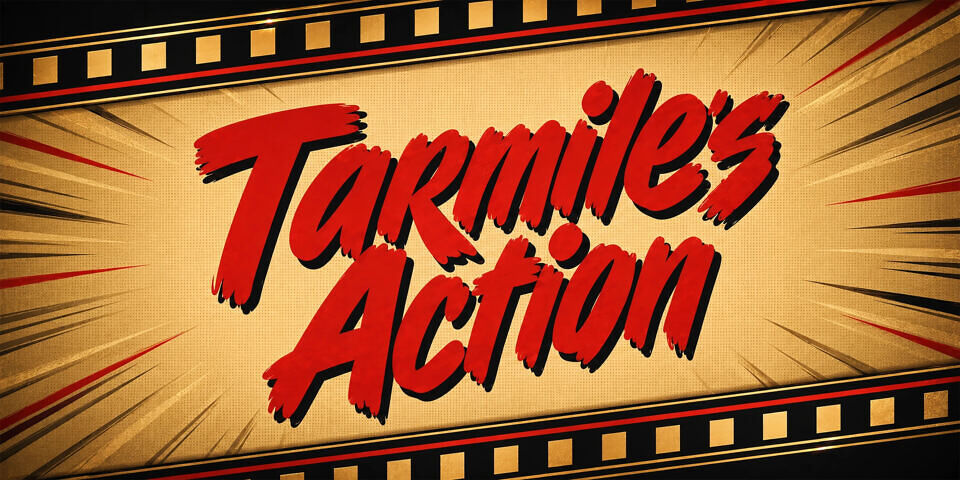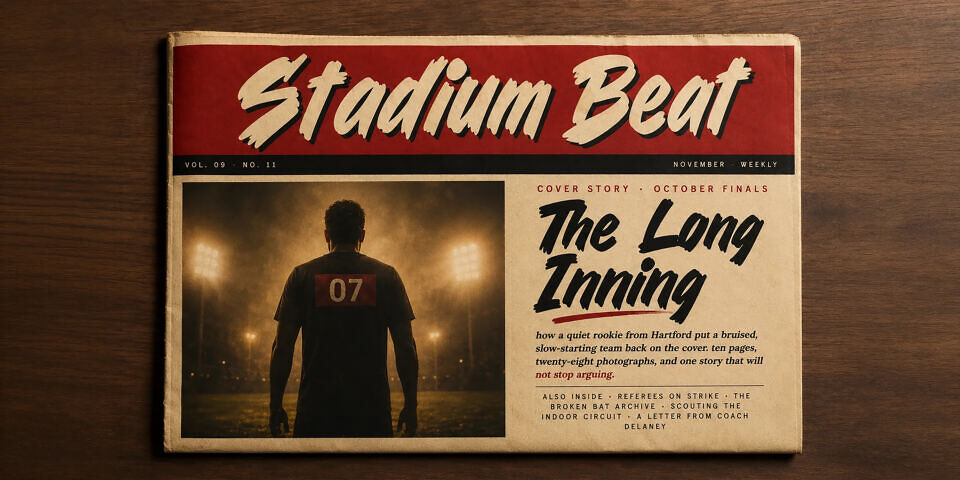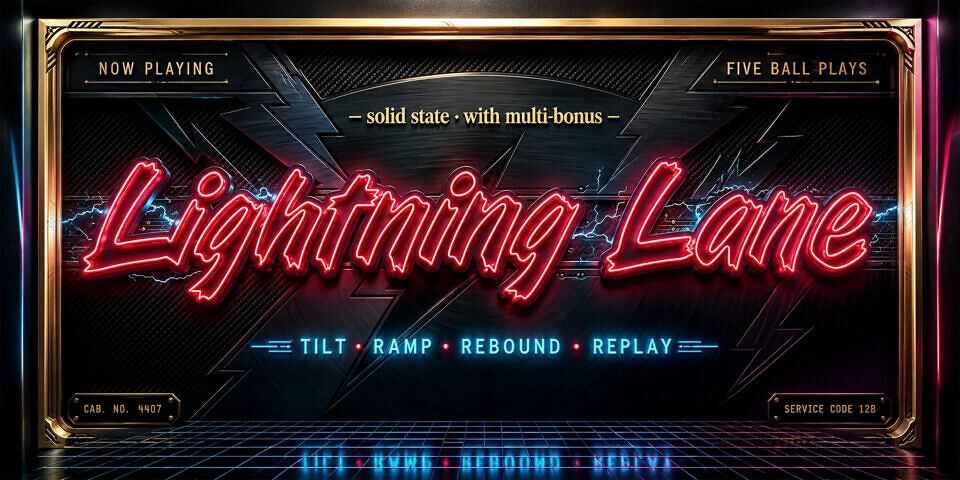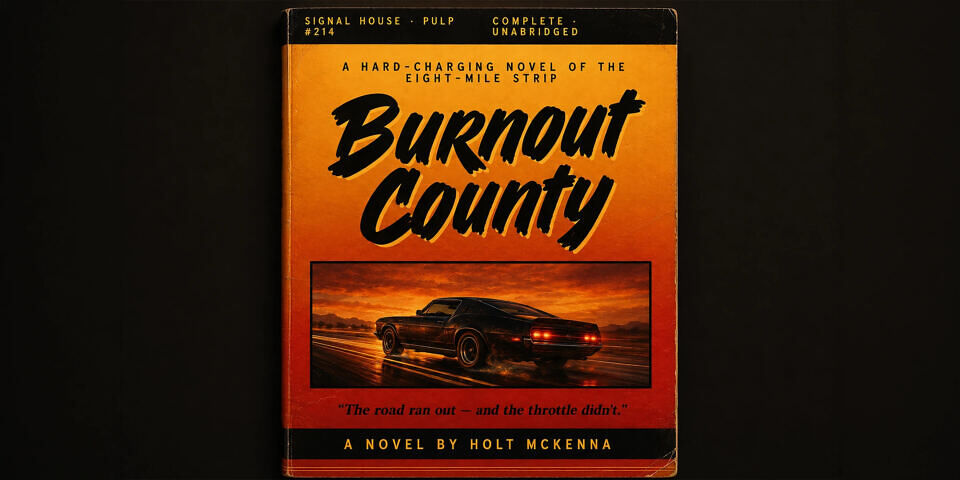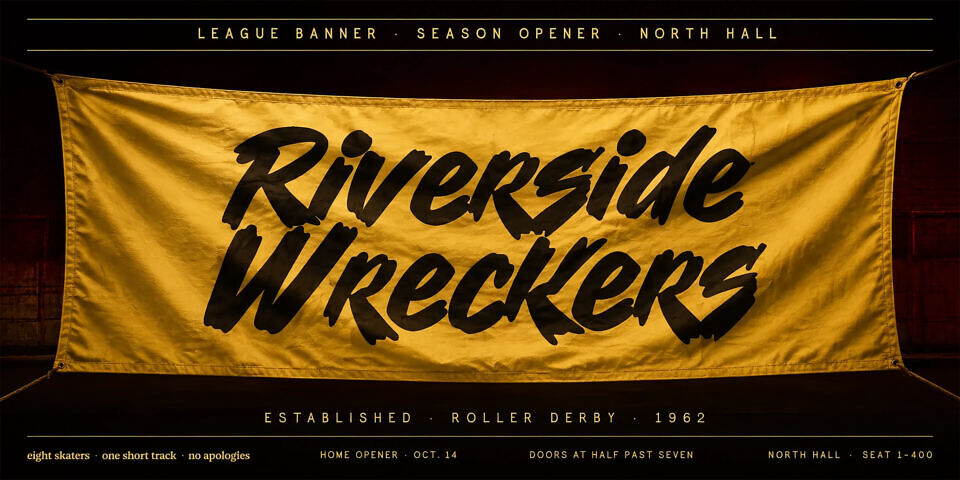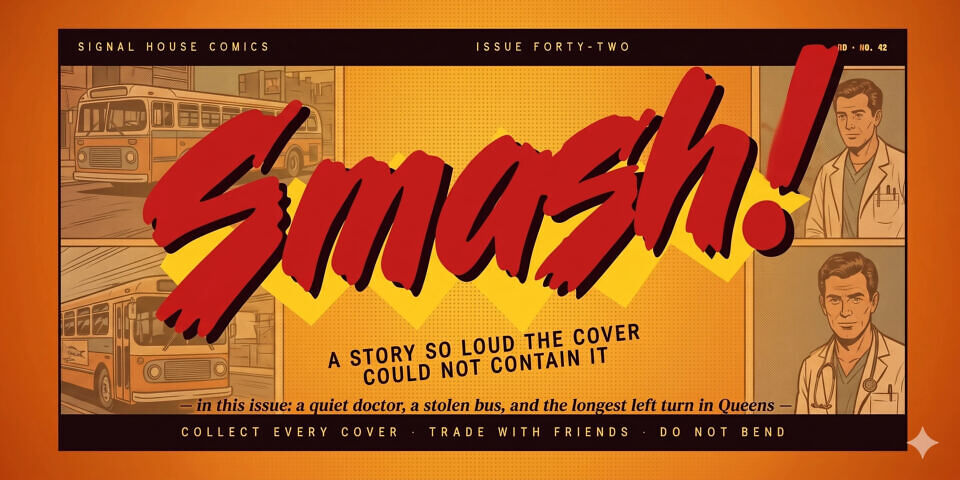
Tarmiles Action Font
Tarmiles Action is a high-contrast italic display face with dry-brush edges and a hard forward charge to every letter. The verticals are thick and chiselled; the horizontals taper into thin tails. The whole alphabet pulls to the right, and the rough perimeter — the small splatters and broken edges — comes from a loaded brush dragged at speed across uncoated paper.
There is a sharp 60s comic energy in the caps and a mid-century sports-magazine bite in the way the letters cut across the line. It hammers nicely across the cover of a paperback motor-racing pulp, or barked over a freeze-frame in the opening title of a low-budget action film.